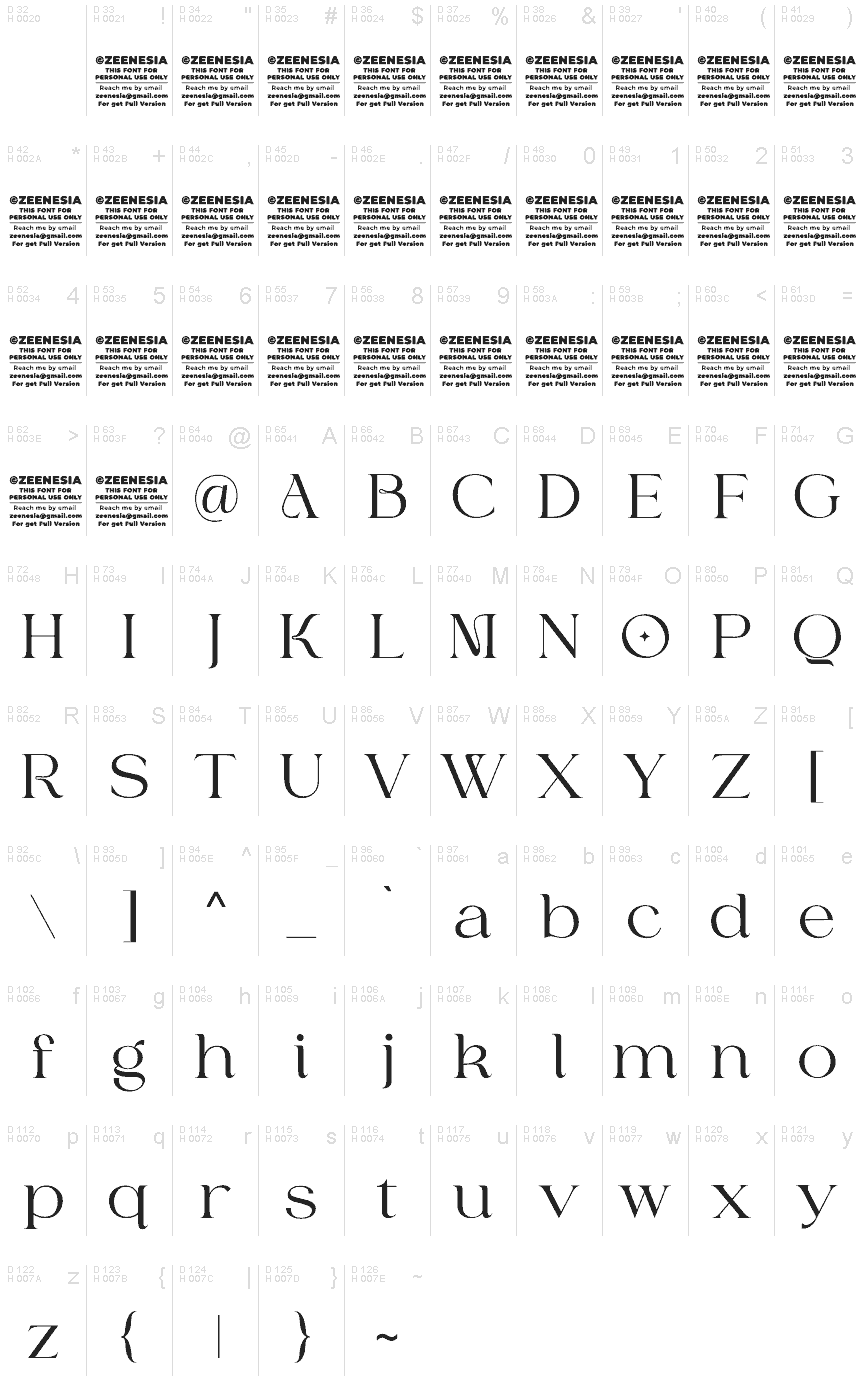
Karima, a free serif font from Zeenesia studio, has a sense of grace and elegance that can be easily applied to several occasions. It can be used in logos, printed business cards, labels, and wedding invitations to add a stylish touch to your creations. So, present your projects in an outstanding way with Karima!